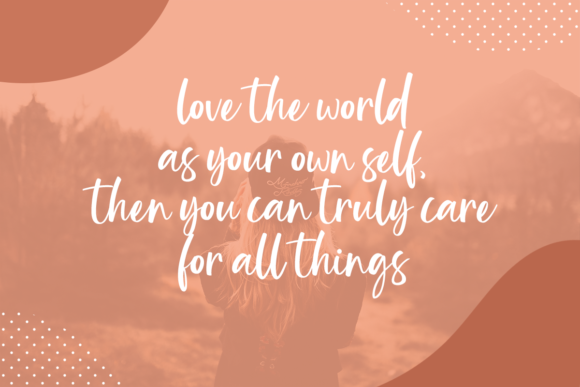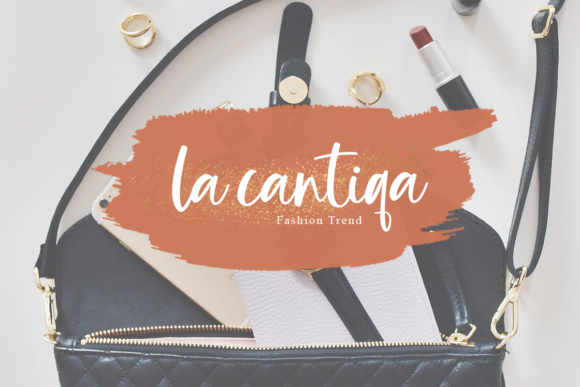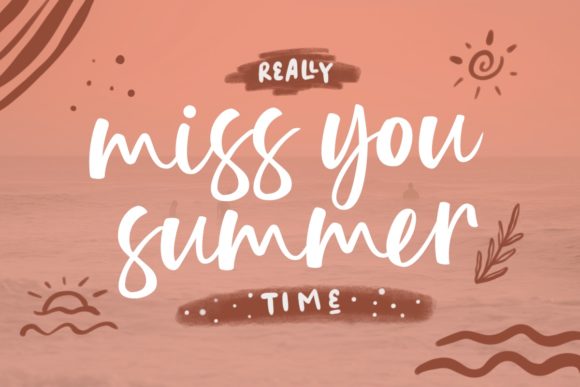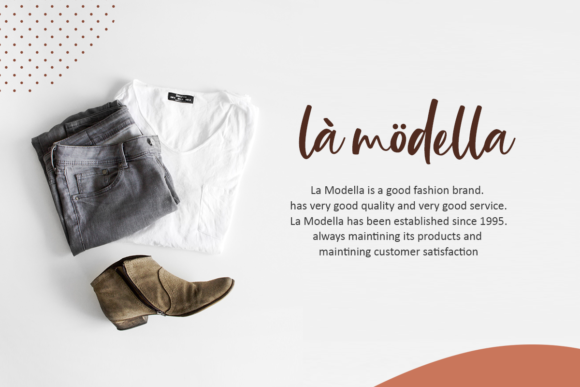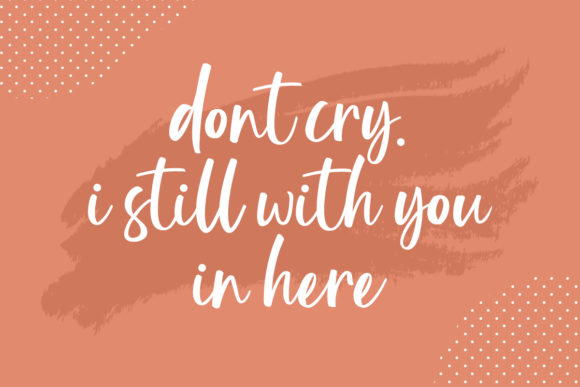
Script Fonts Blindsay Font 0 151 FacebookTwitterPinterestWhatsApp Blindsay Font Poster 2 Blindsay Font Poster 3 Blindsay Font Poster 4 Blindsay Font Poster 5 Blindsay Font Poster 6 About Blindsay Font Blindsay embodies fun, quirkiness and authenticity. This enchanting handwritten font will turn any creative idea into a true standout. DOWNLOAD NOW